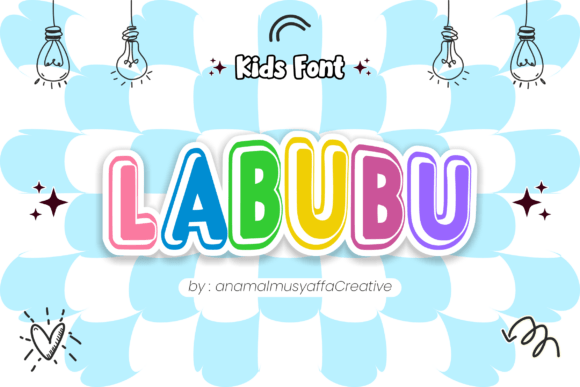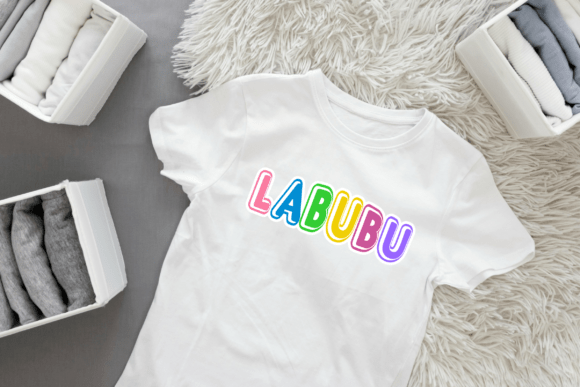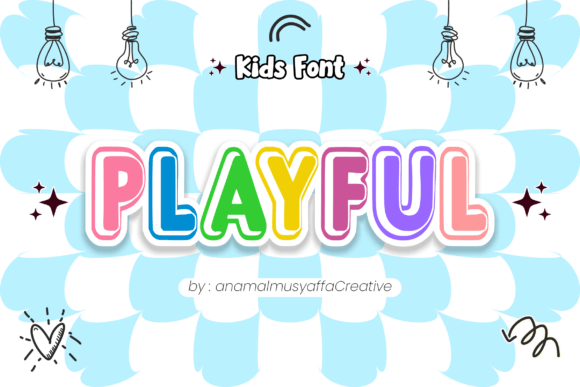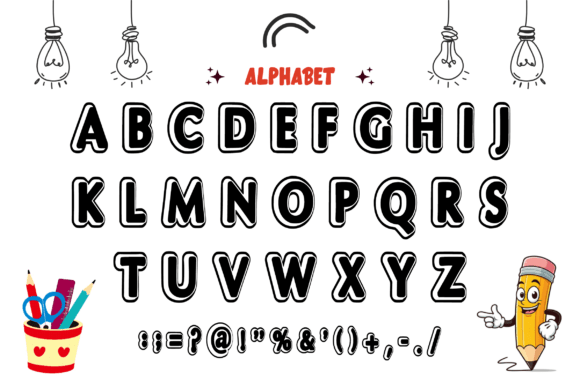
Introducing Happy Sunday Font: The Ultimate Choice for Playful Designs
Are you a designer or crafter looking for a font that can add a playful twist to your creations? Look no further than the Happy Sunday Font, a contemporary cartoon typeface designed specifically for kids. This engaging font is perfect for a wide range of design projects, from sublimation designs to animations and comic titles.
The Cuteness Factor
One of the standout features of the Happy Sunday Font is its irresistible cuteness. Every character is designed to be adorable, making it an easy fit for designs that require a playful and youthful touch. The font’s cute and bubbly personality shines through in every letter, number, and symbol, making it perfect for designs that need to appeal to kids and adults alike.
The Happy Sunday Font is incredibly versatile, making it suitable for a wide range of design projects. Its sublimation-friendly design makes it perfect for creating custom items such as:
- T-shirts: Add a playful twist to your t-shirt designs with the Happy Sunday Font.
- Mugs: Create fun and colorful mug designs that are sure to brighten up anyone’s day.
- Tote bags: Add a cute and playful touch to your tote bag designs with this adorable font.
But the Happy Sunday Font doesn’t stop there. Its playful and engaging personality also makes it perfect for:
- Animations: Add a fun and lively touch to your animations with this delightful font.
- Comic titles: Create eye-catching comic titles that are sure to grab attention.
- Children’s books: Use the Happy Sunday Font to create engaging and interactive children’s books.
A Canvas for Creative Explorations
The Happy Sunday Font is more than just a font – it’s a canvas for your creative explorations. With its playful and engaging personality, this font invites you to experiment and push the boundaries of your designs. Whether you’re a seasoned designer or a crafter just starting out, the Happy Sunday Font is the perfect choice for anyone looking to add a playful twist to their creations.
Key Features of Happy Sunday Font
- Contemporary cartoon typeface designed specifically for kids.
- Every character is designed to be cute and adorable.
- Sublimation-friendly design perfect for custom items.
- Versatile and suitable for a wide range of design projects.
- Playful and engaging personality perfect for animations, comic titles, and children’s books.
Tips for Using Happy Sunday Font
Here are a few tips for using the Happy Sunday Font in your designs:
- Use the Happy Sunday Font in combination with other fonts to create unique and eye-catching designs.
In conclusion, the Happy Sunday Font is a versatile and engaging font that’s perfect for designers and crafters looking to add a playful twist to their creations. With its cute and bubbly personality, sublimation-friendly design, and versatility, this font is sure to become a favorite in your design arsenal. So why wait? Download the Happy Sunday Font today and start exploring the endless possibilities of creative design!